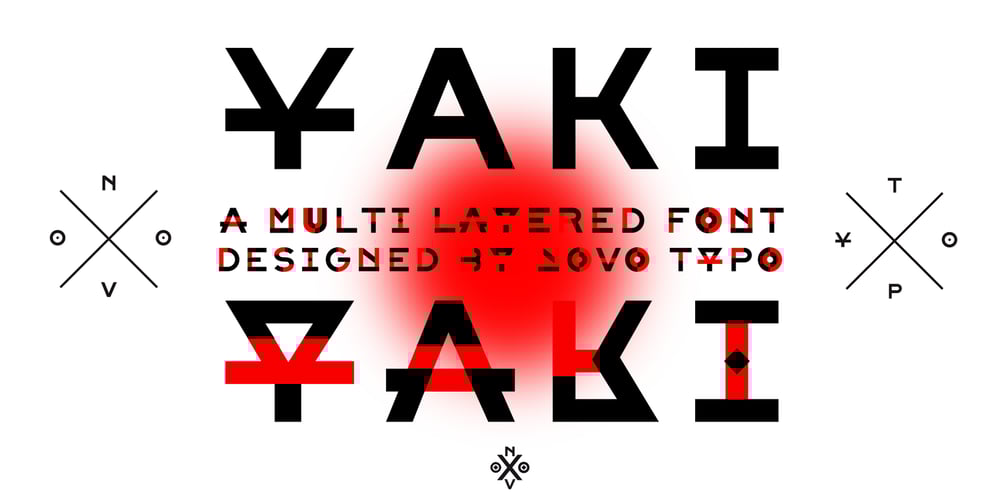
NT Yaki
NT Yaki font
NT Yaki Font Family was designed by published by Novo Typo. NT Yaki contains 4 styles and family package options. Yaki is a set of three chromatic fonts. Yaki One is the plain version. Yaki Two and Yaki Three are separate fonts combining two layers with different colors. Yaki is perfect for designing sophisticated multi-colored logo’s, fashionable headings or other beautiful display typography. Yaki is designed by Novo Typo, (typo)graphic designers from Amsterdam, The Netherlands.